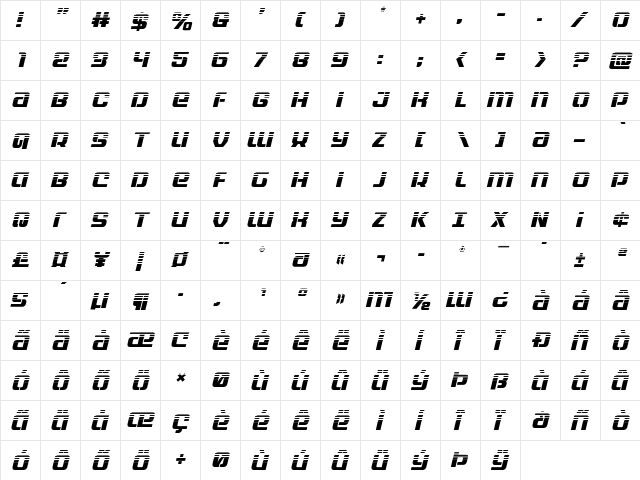
Globe Trekker Halftone Italic Italic
Design Context for Globe Trekker Halftone Italic Typeface
Globe Trekker Halftone Italic is a composed and adaptable typeface that performs quietly and consistently across a wide range of design contexts. The dynamic lean of this cut emphasises speed and emphasis in any layout.
Pro Tip: Try Globe Trekker Halftone Italic for annotation and caption copy alongside an upright companion — the contrast in angle creates a dynamic but ordered typographic system.